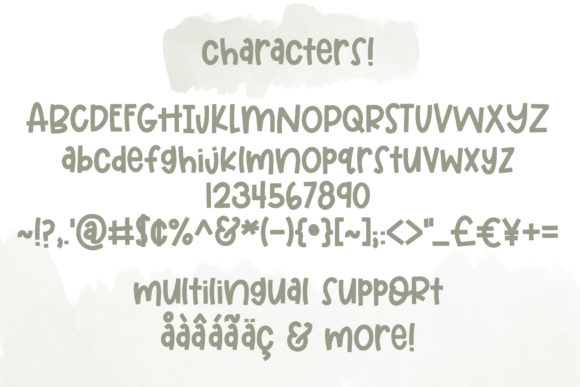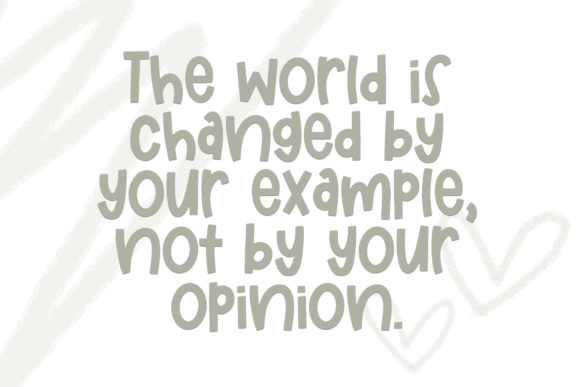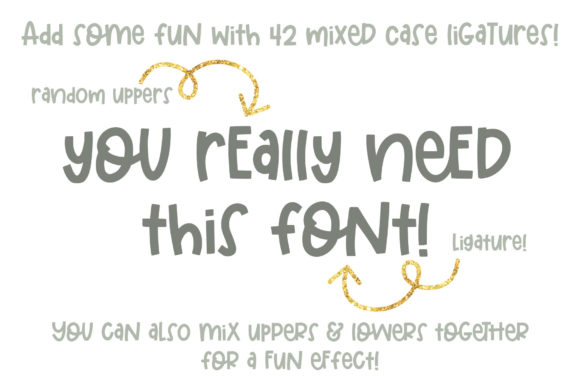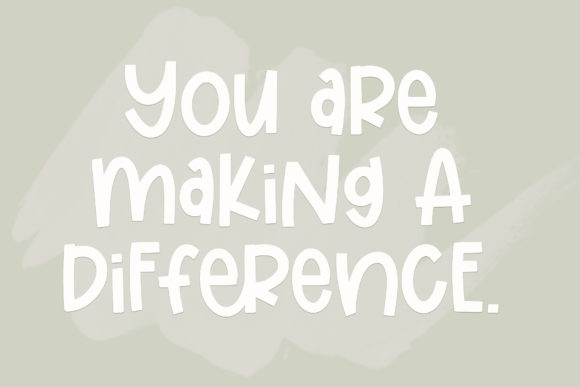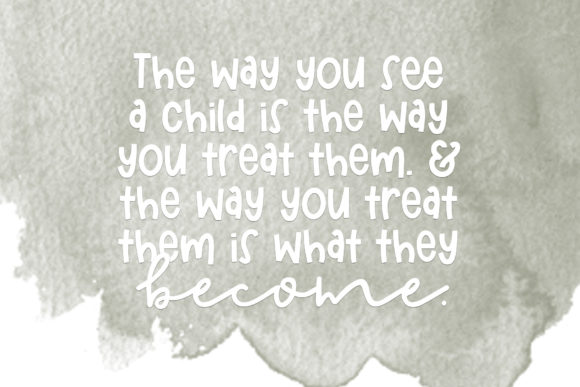
Elementary Font
Elementary is a playful and modern handwritten font. No matter the topic, this font will be an incredibly asset to your fonts’ library, as it has the potential to elevate any creation.